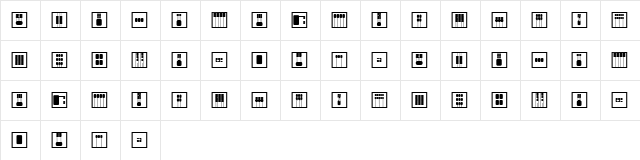
Mouvman Regular
Design Context for Mouvman Typeface
Mouvman is a composed and adaptable typeface that performs quietly and consistently across a wide range of design contexts.